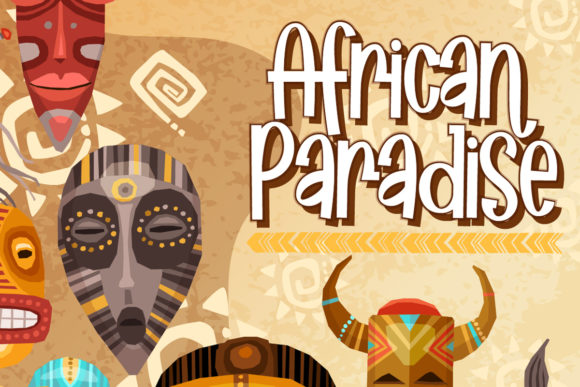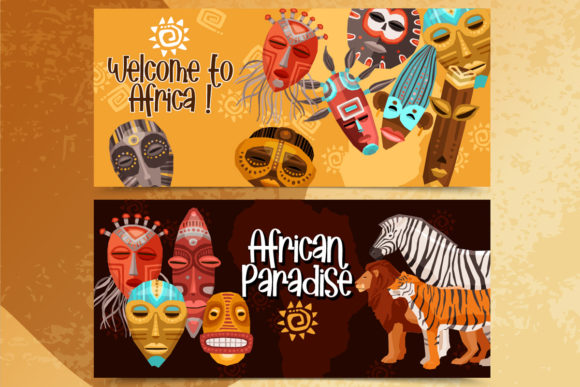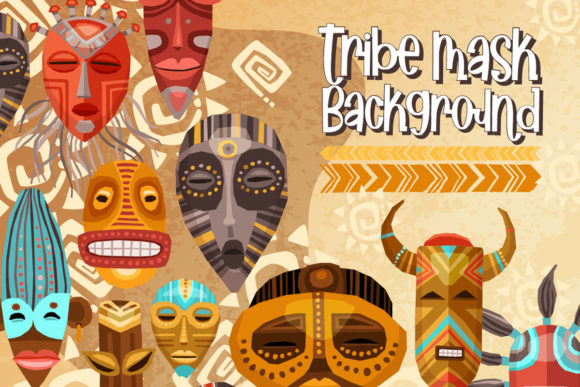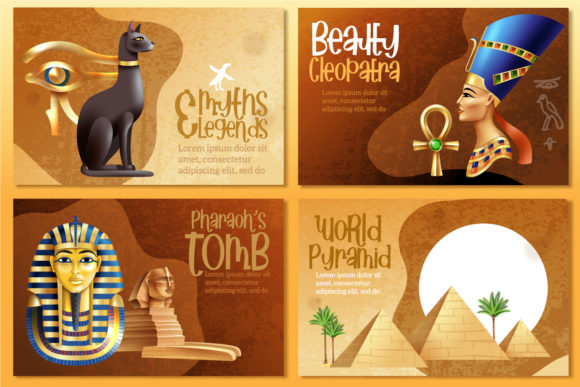
African Paradise Font: A Playful Display Font for Cute Designs
About the African Paradise Font
Elevate your designs with African Paradise Font, a font that combines sophistication with readability. African Paradise is an incredibly quirky and sweet display font. Whether you use it for cartoon related designs, children games or just any creation that requires a lovely touch, this font will be an amazing choice.
African Paradise’s playful character makes it ideal for children’s books, playful branding, and packaging for sweet treats or toys. Its whimsical forms also work well in eye-catching headlines or short, impactful text on posters and social media graphics. However, its decorative nature makes it unsuitable for body text or UI elements requiring high readability.
Pairing African Paradise with a clean sans-serif like Open Sans for body copy provides a strong contrast and balances its quirkiness. For a more sophisticated feel, consider a classic serif like Garamond or a geometric sans-serif like Futura. These pairings ground the playful nature of African Paradise, creating visually appealing and accessible designs.
The font exudes a friendly, approachable, and undeniably charming personality. It is best suited for projects that aim for a light-hearted, approachable, and memorable visual identity.
African Paradise Font Usage Examples
African Paradise Font Example